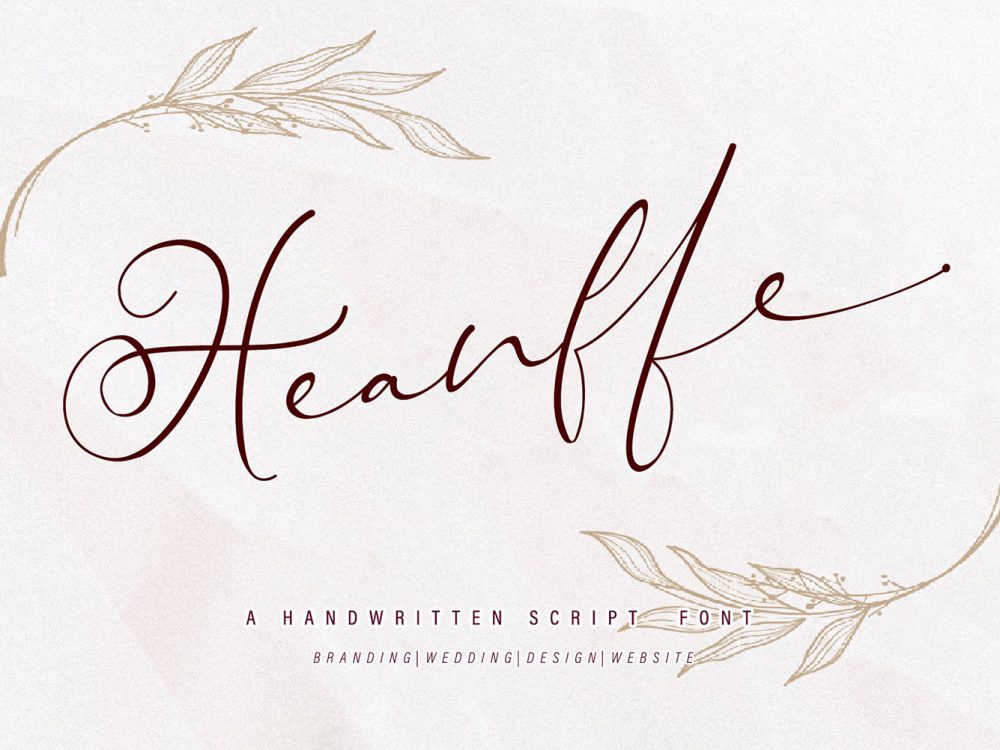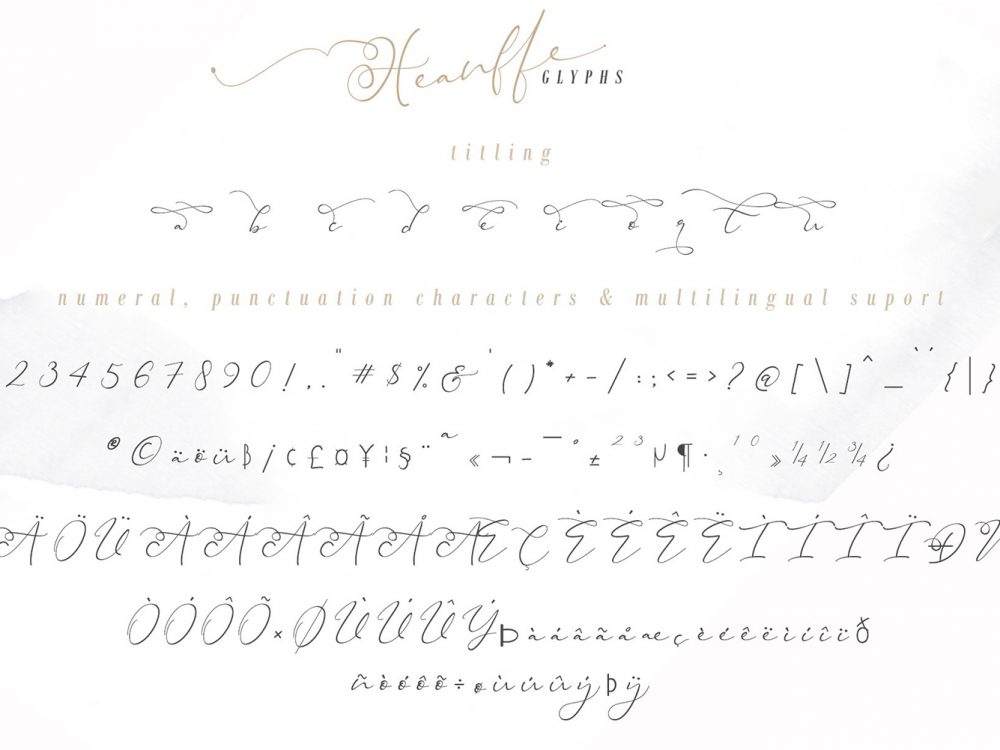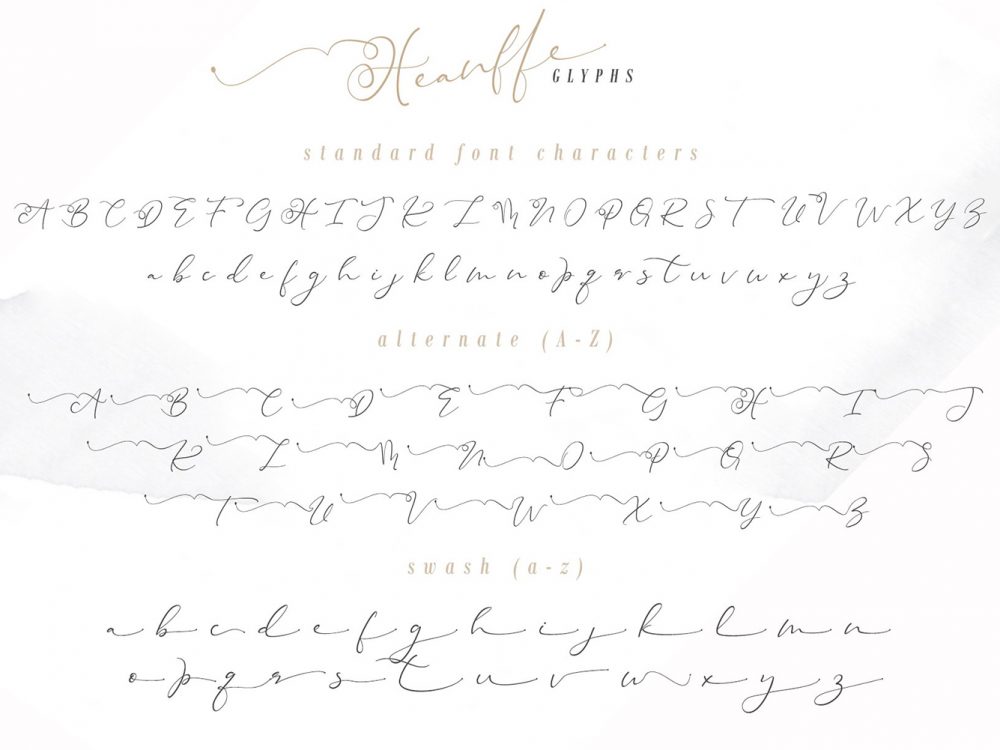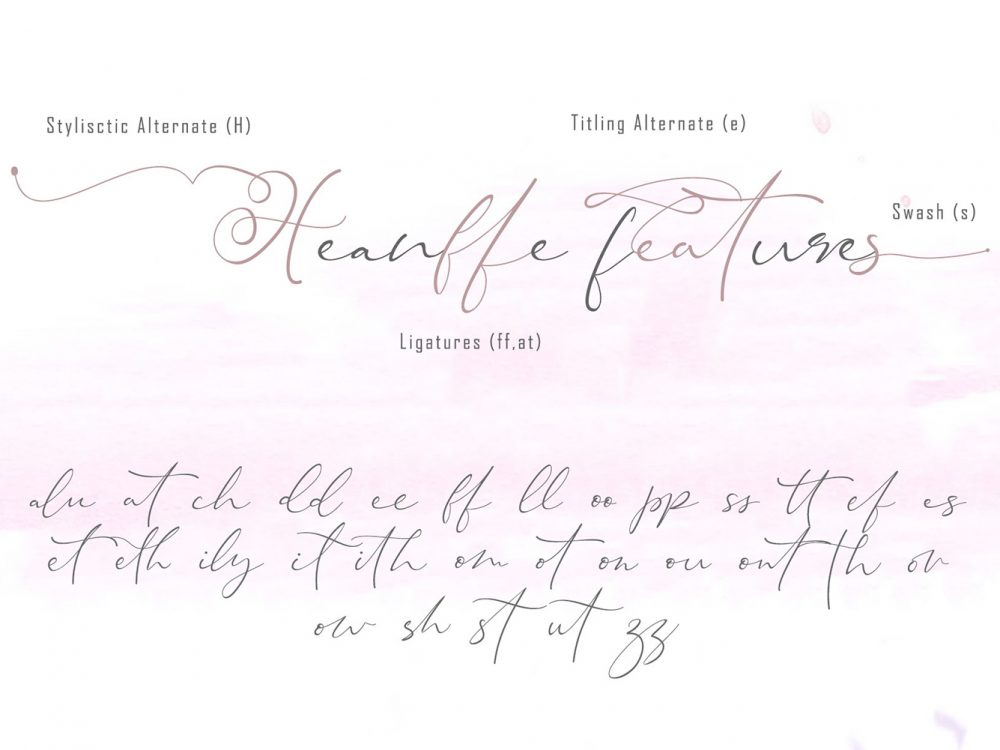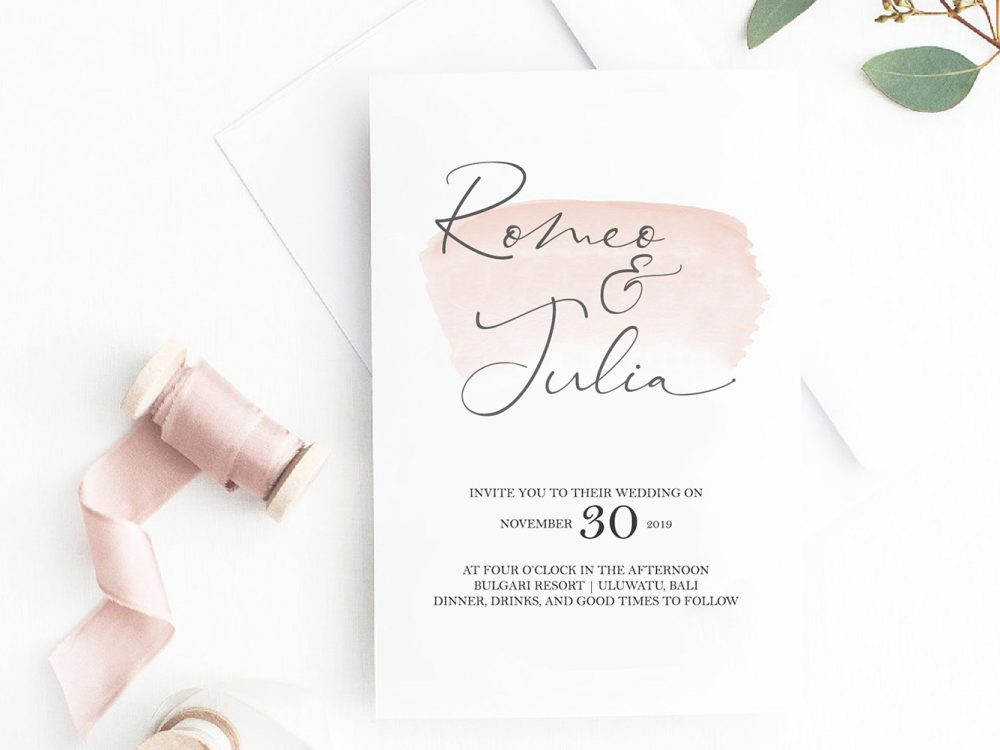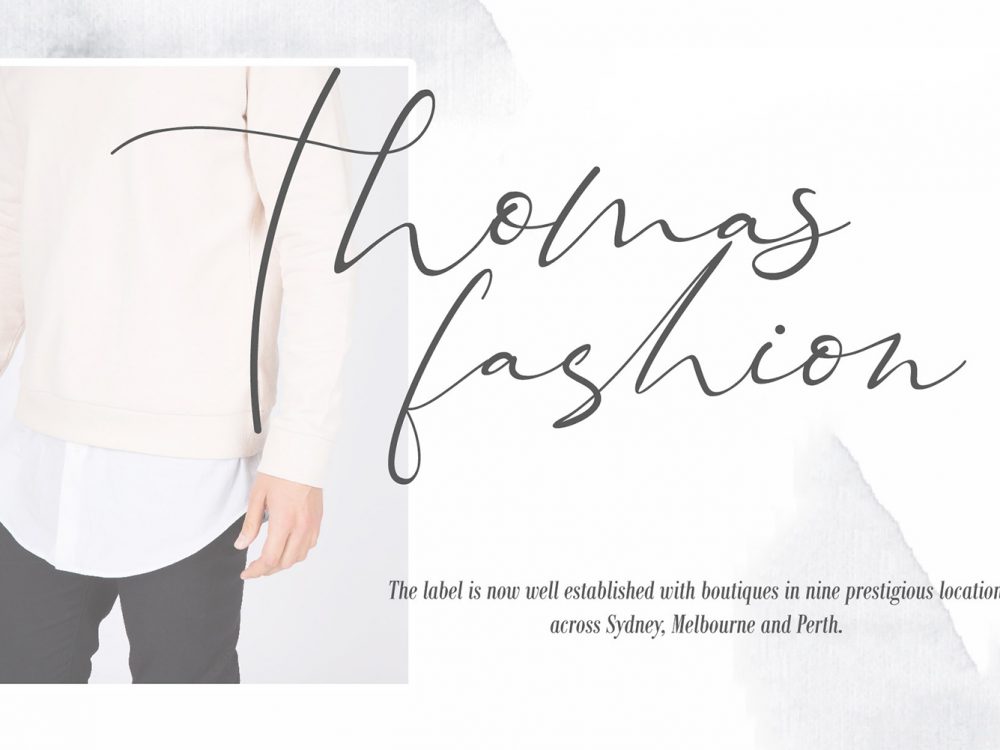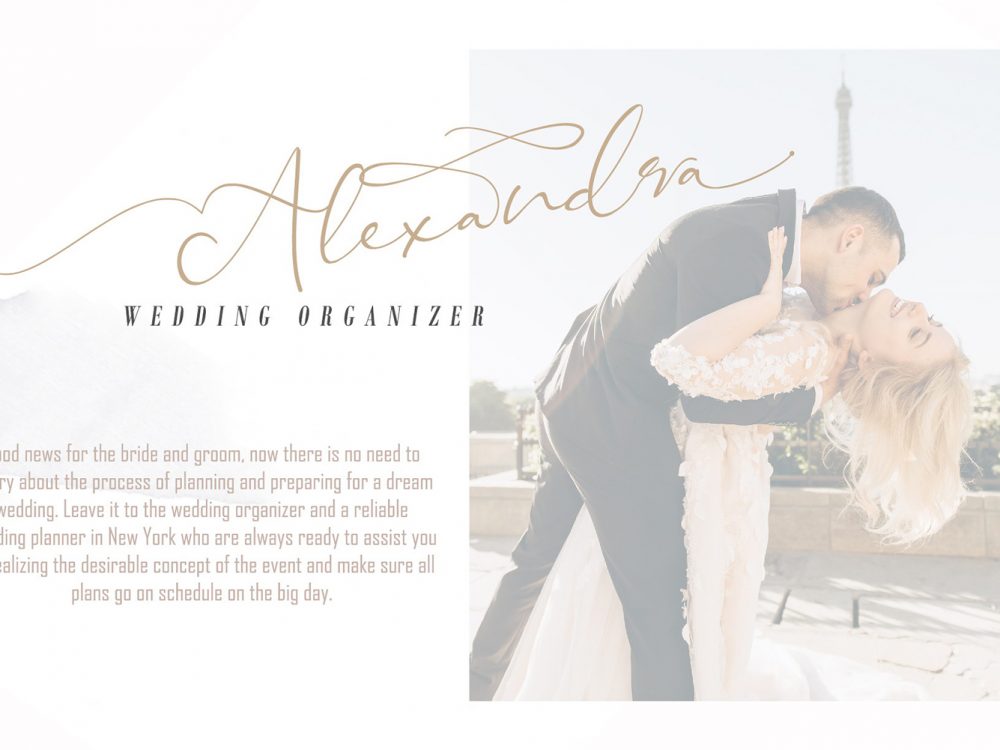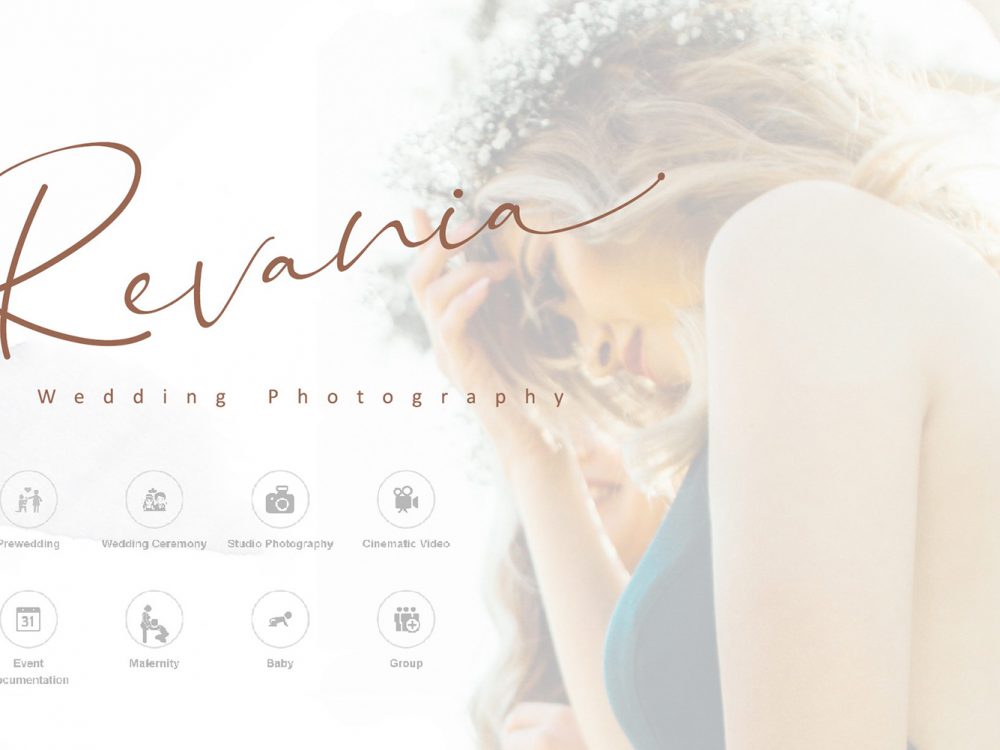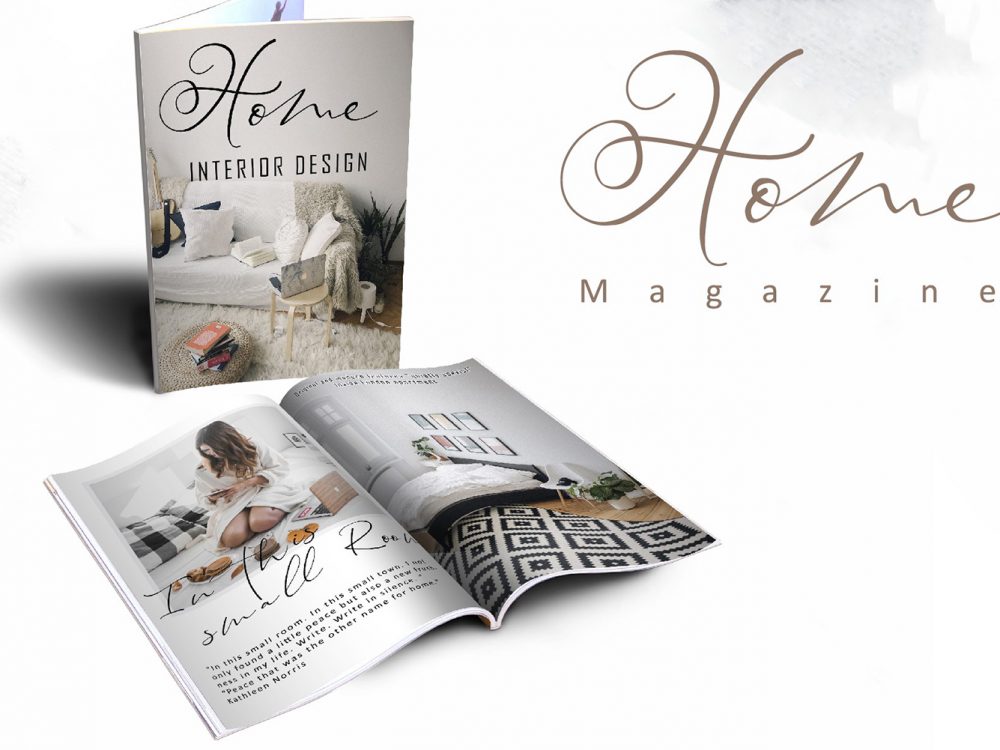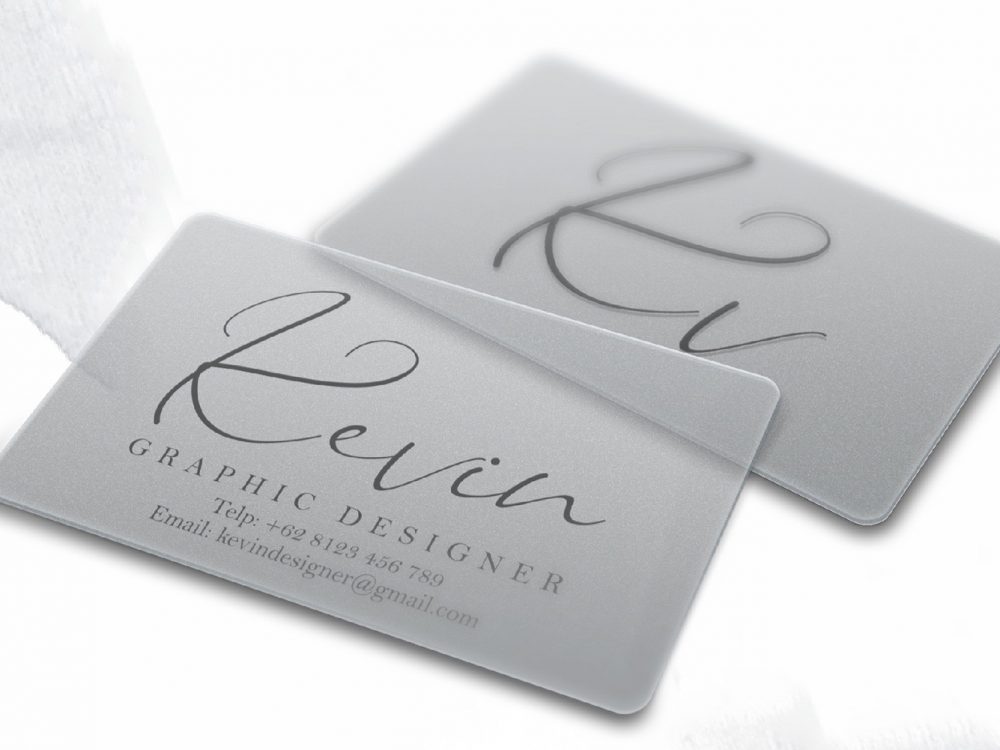
Heanffe Font
Heanffe Font is a beautiful interesting handwritten font with elegant weights that will help you create memorable design projects that require a scripted font. Use this font for creation, posters, wedding invitations, cards, branding, flyers, prints, and more. If you want to use it for commercial work please buy the full version.